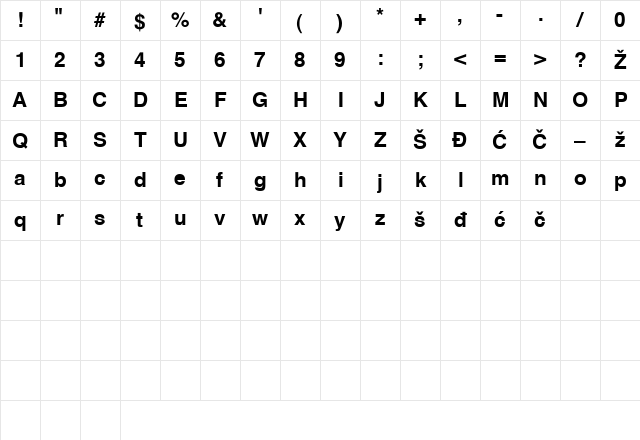
0Hel-B Regular Free Font
0Hel-B Regular
Design Context for 0Hel-B
0Hel-B is a composed and adaptable typeface that performs quietly and consistently across a wide range of design contexts.